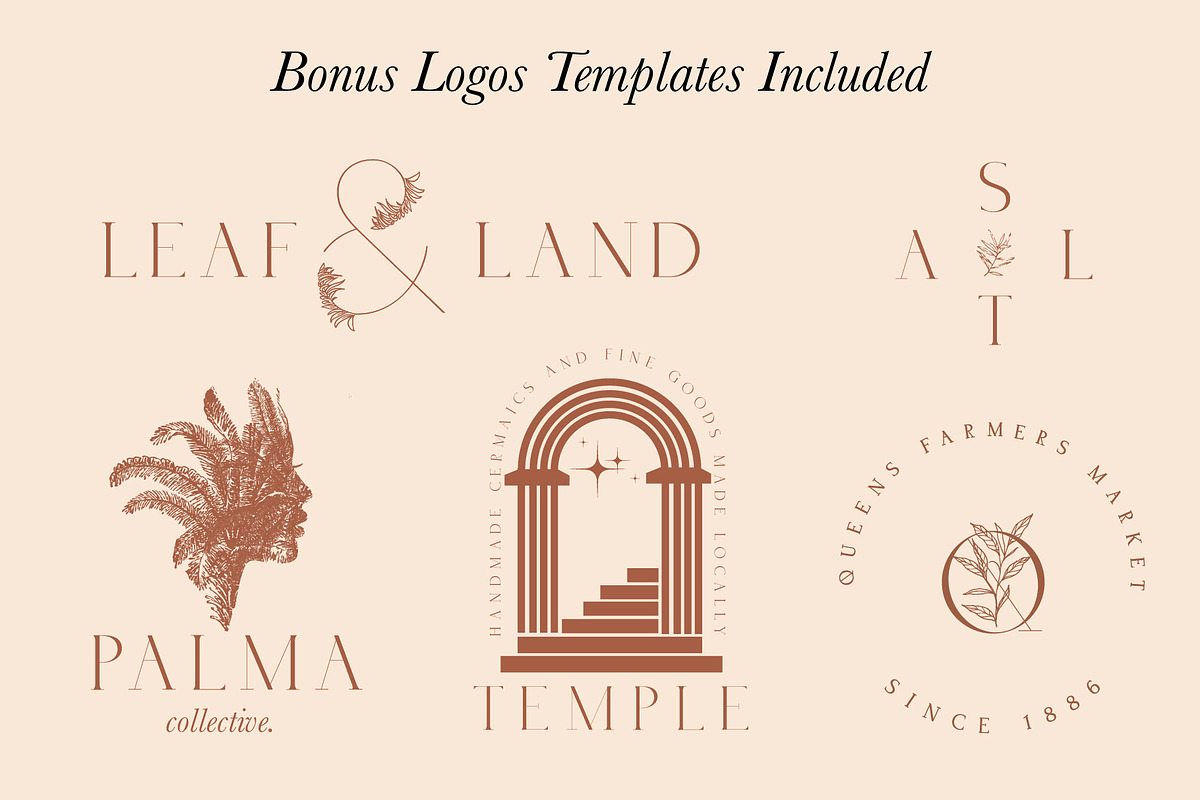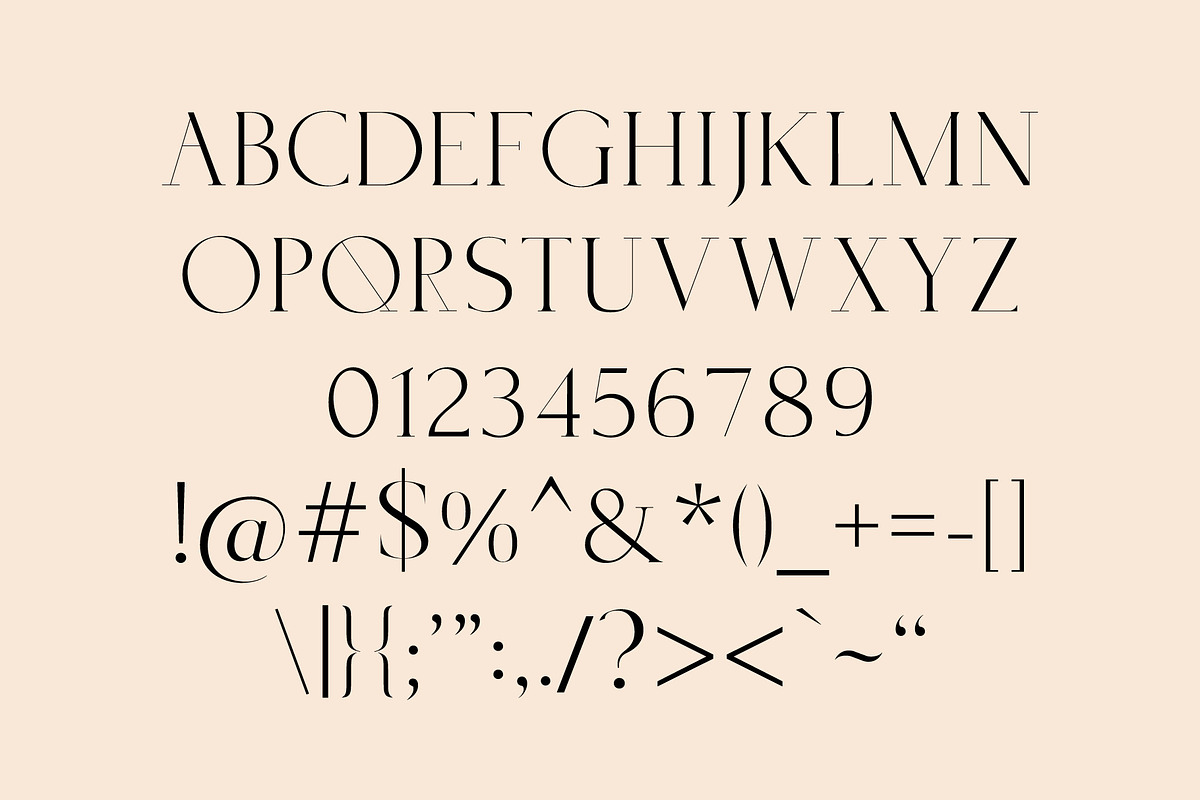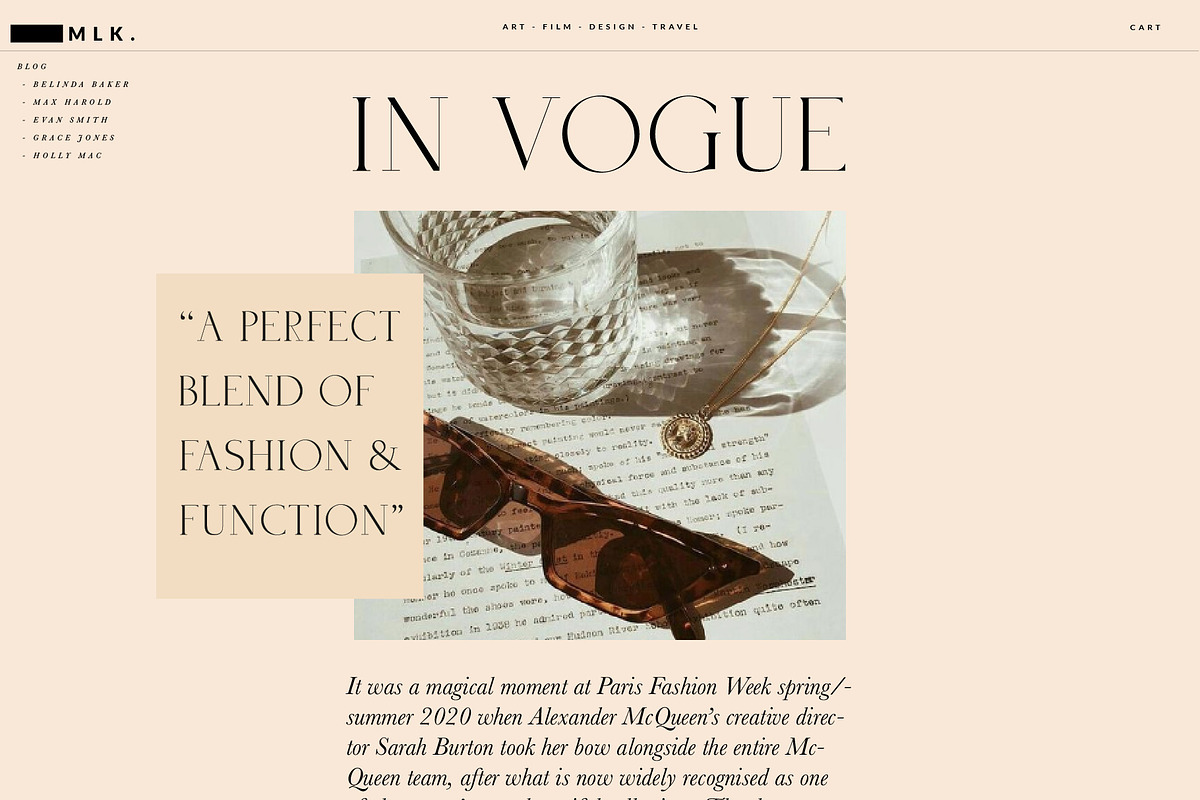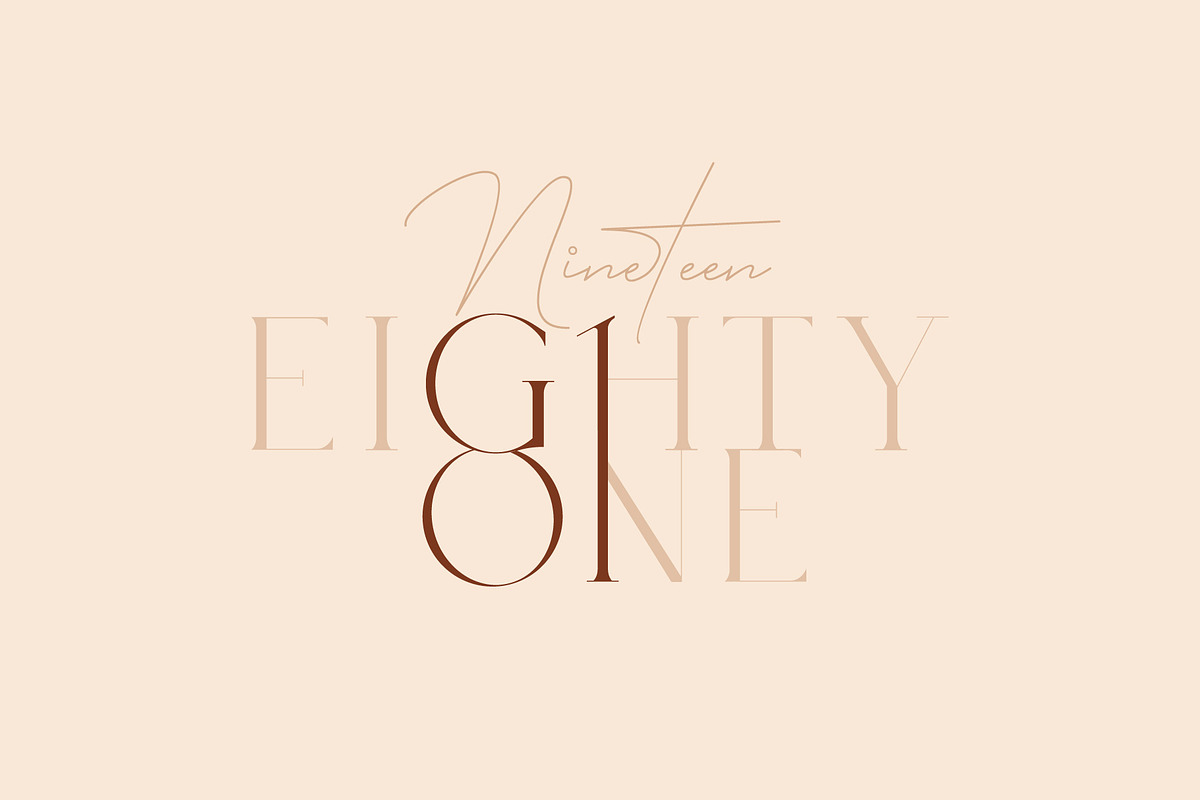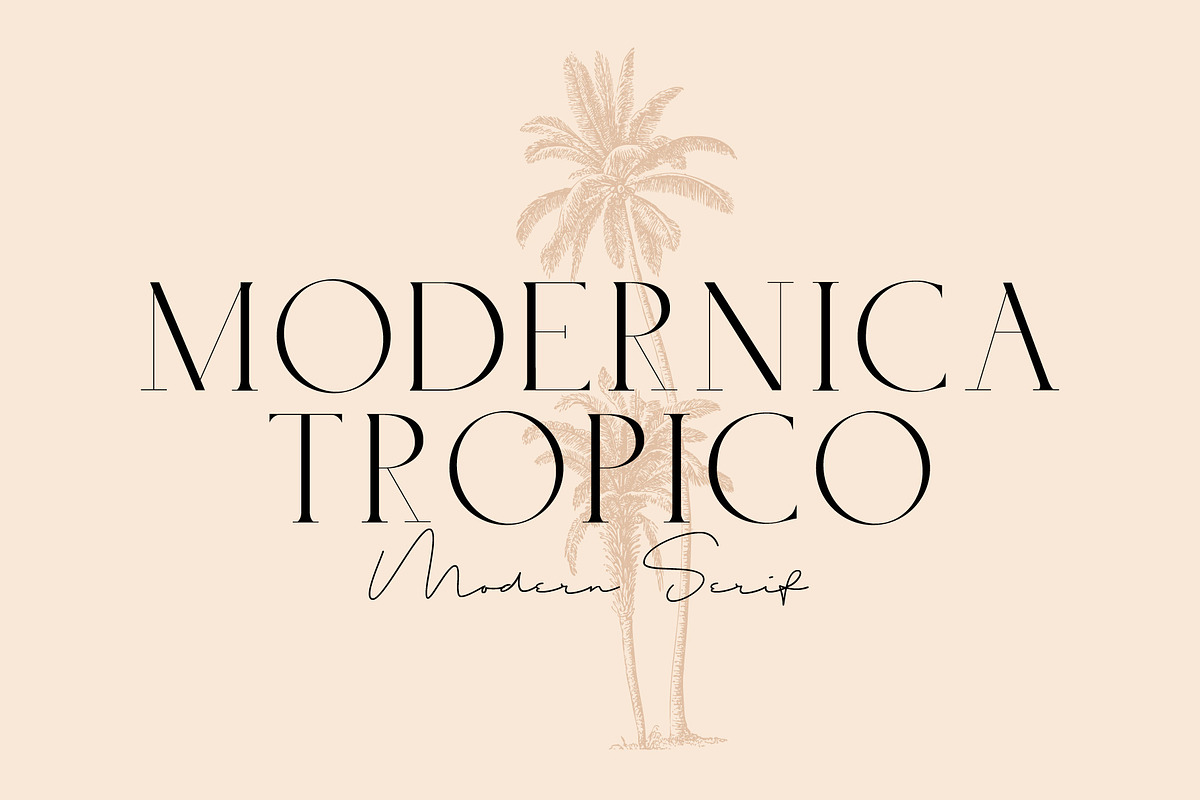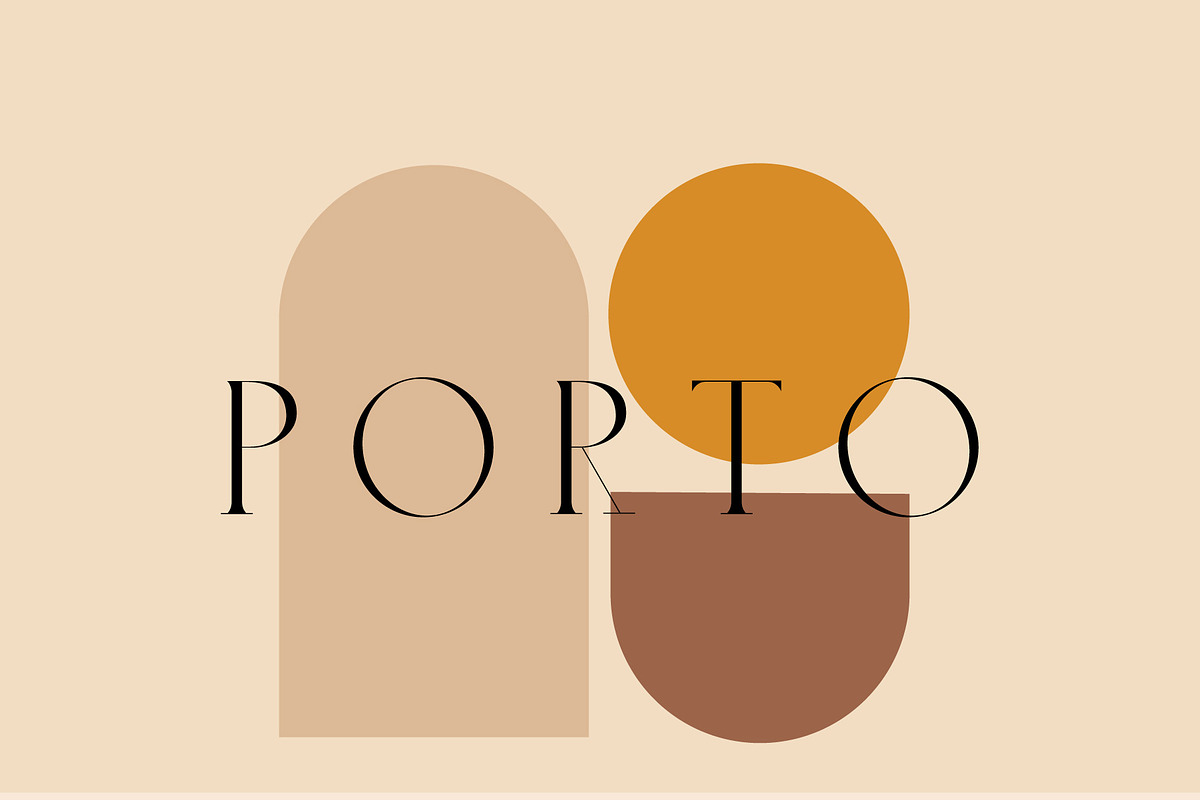
Modernica Tropico - Caps Serif Font
Modernica is a little bit deco and a little modern. It's a fashionable all caps serif that portrays classic elegance.This versatile font works great for mastheads, pull quotes and wordmark logos. Plus i have thrown in 5 .Ai & .Eps logo templates that compliment the typeface.
- Caps, Lowercase, Numbers and Punctuation